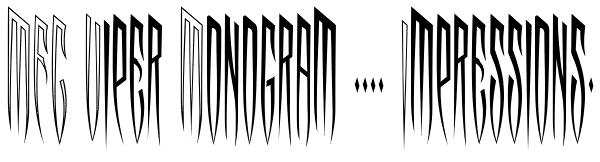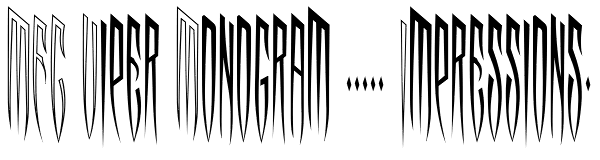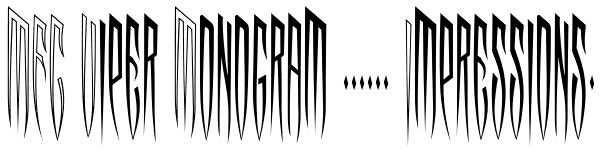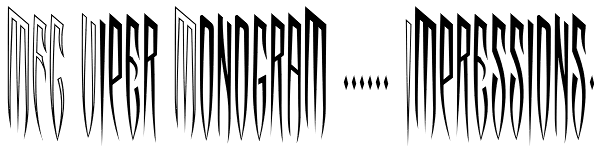
MFC Viper Monogram
The inspiration source for Viper Monogram is the 1934 Book of American Types by American Type Founders. Found in that specimen book, was a sophisticated two-color monogram design called Hollywood Combination Initials, which was available in limited...